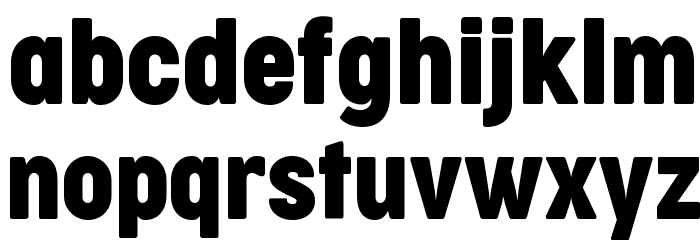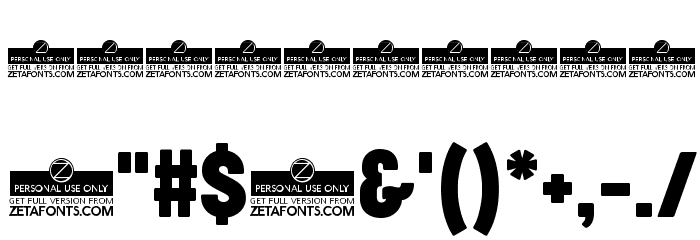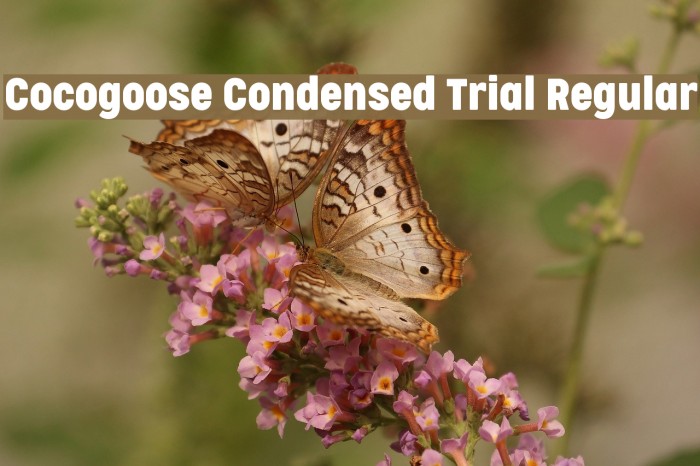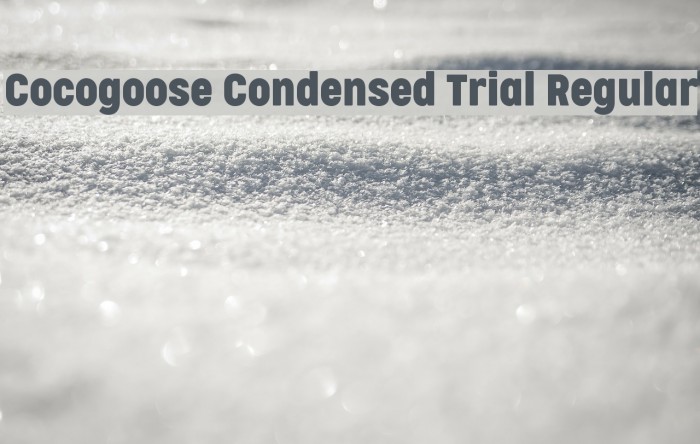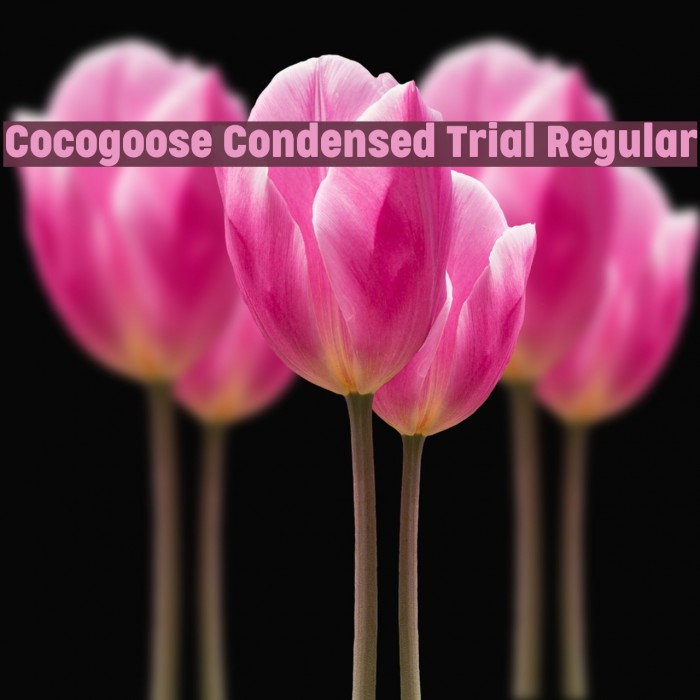
Cocogoose Condensed Trial Regular Font
This font features a bold and modern design with a condensed structure, making it ideal for impactful headlines and attention-grabbing text. The uppercase and lowercase letters are uniformly bold, with a consistent stroke width that enhances readability. The characters are tightly spaced, contributing to its compact appearance. The font includes a full set of uppercase and lowercase letters, numbers, and a variety of special characters, providing versatility for different design needs. Its strong presence and clean lines make it suitable for both digital and print media.
A bold, modern, and condensed font ideal for impactful headlines.
- Proposed Projects: Perfect for branding, advertising, posters, and digital media where bold and clear text is required.
- Character Spacing: Tight